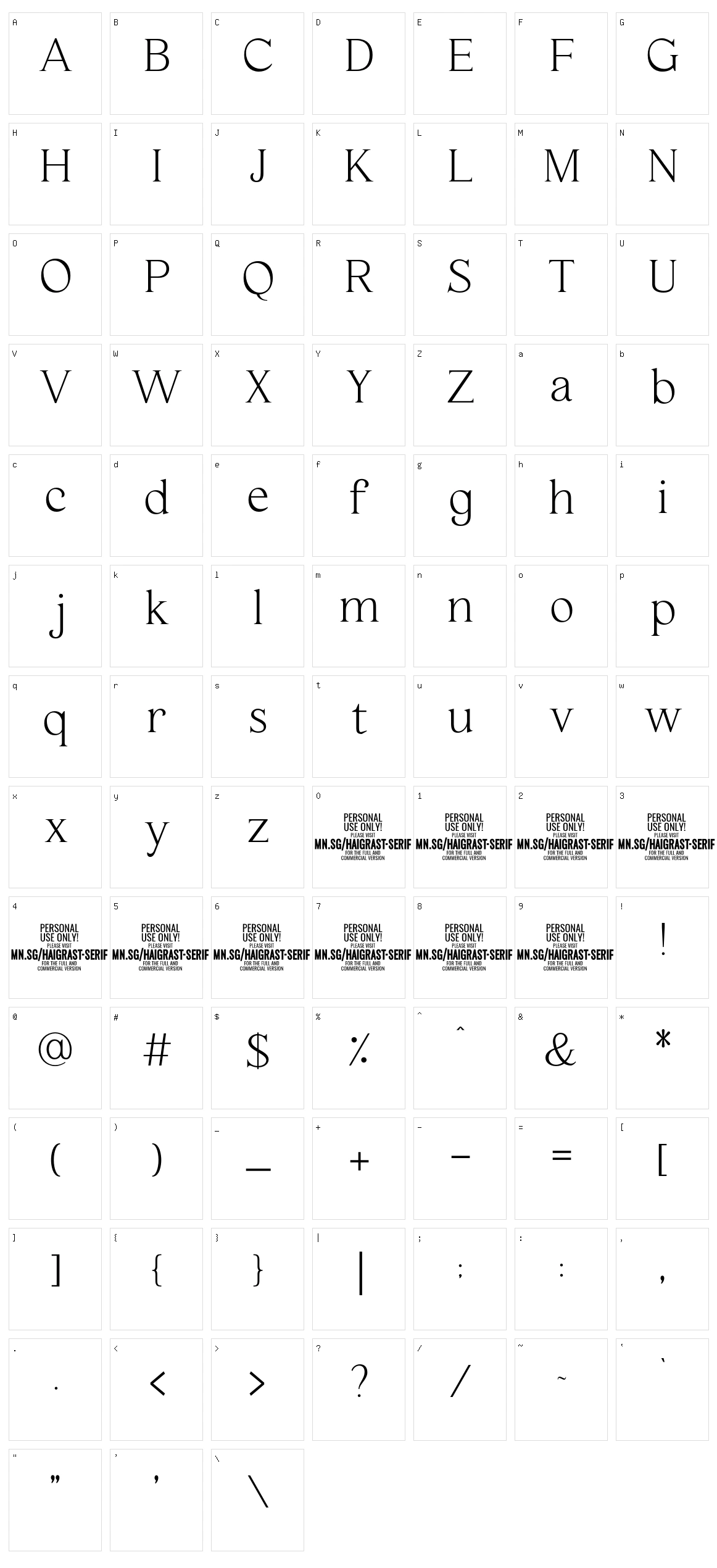
Haigrast Serif is a font that combines classic and modern design elements to create a look that is both tasteful and fashion-forward.
This serif font is regular but with a very modern feel, making it the perfect choice for designers looking to add a touch of sophistication to their work.
The sharp, crisp lines and swash alternates in addition to the decorative letterings add a unique touch, making Haigrast Serif a versatile font that can be used in a variety of projects.
Whether you're creating a stylish magazine layout, a cool fashion logo, or a balanced design piece, Haigrast Serif is the perfect font to make your work stand out.
Designed by Mans Greback in 2023, this font is the perfect choice for designers who want to make a bold statement in their design work.